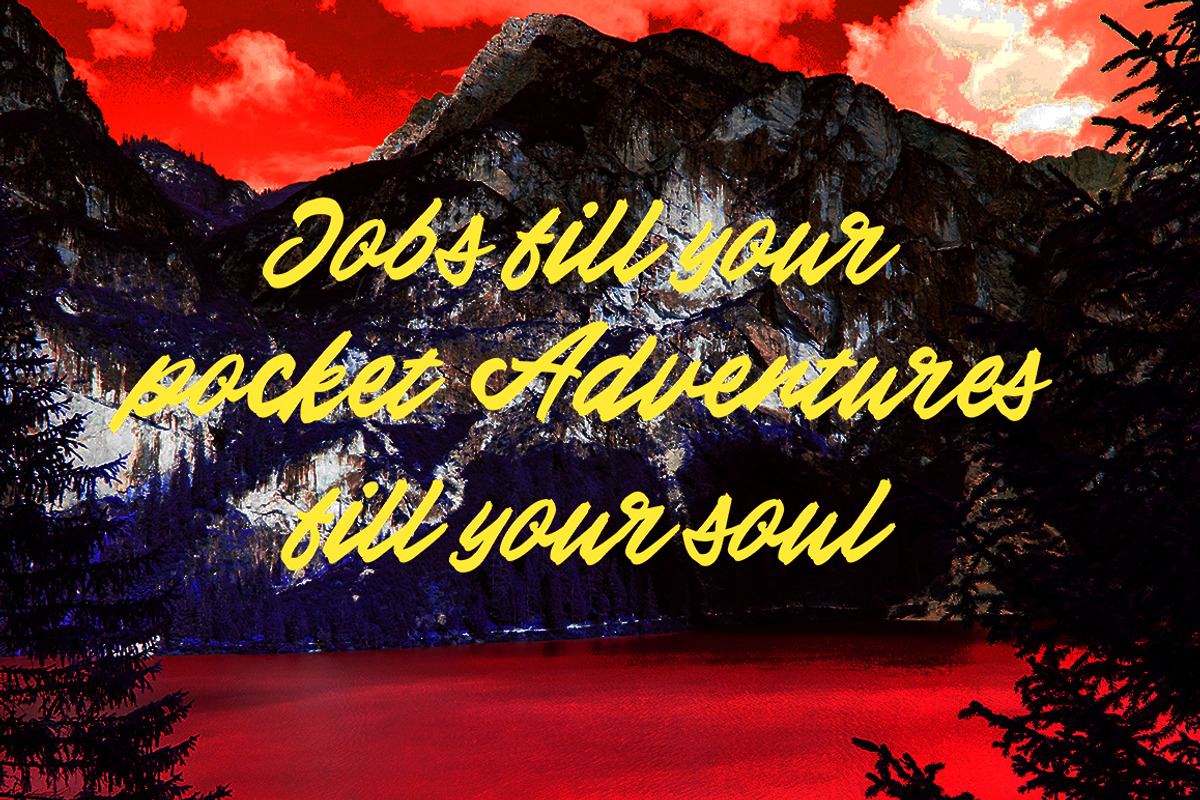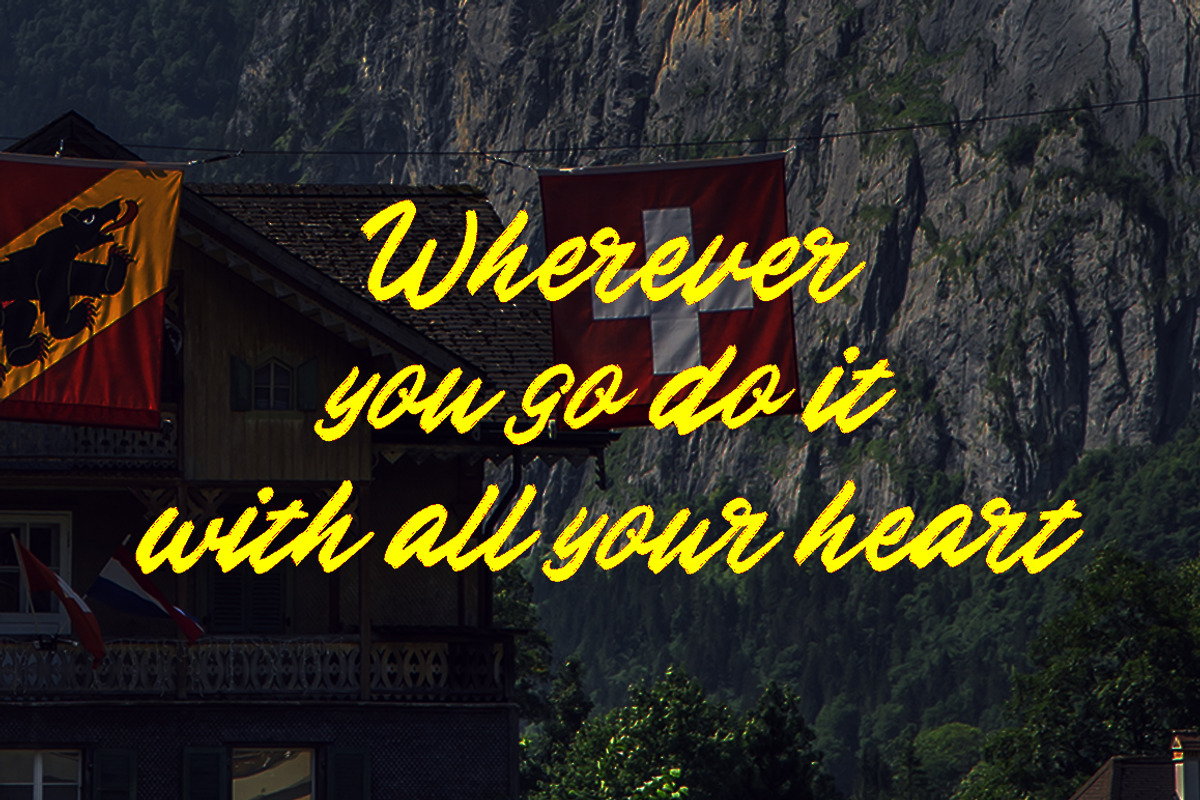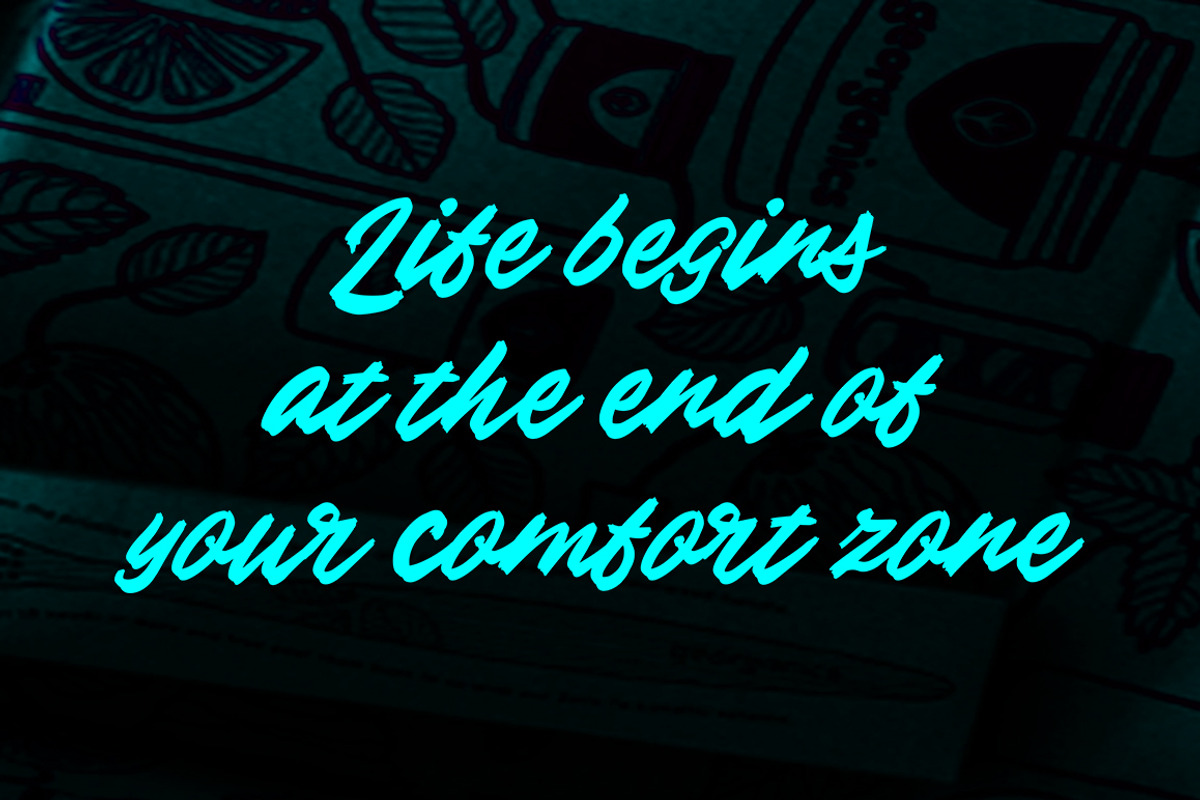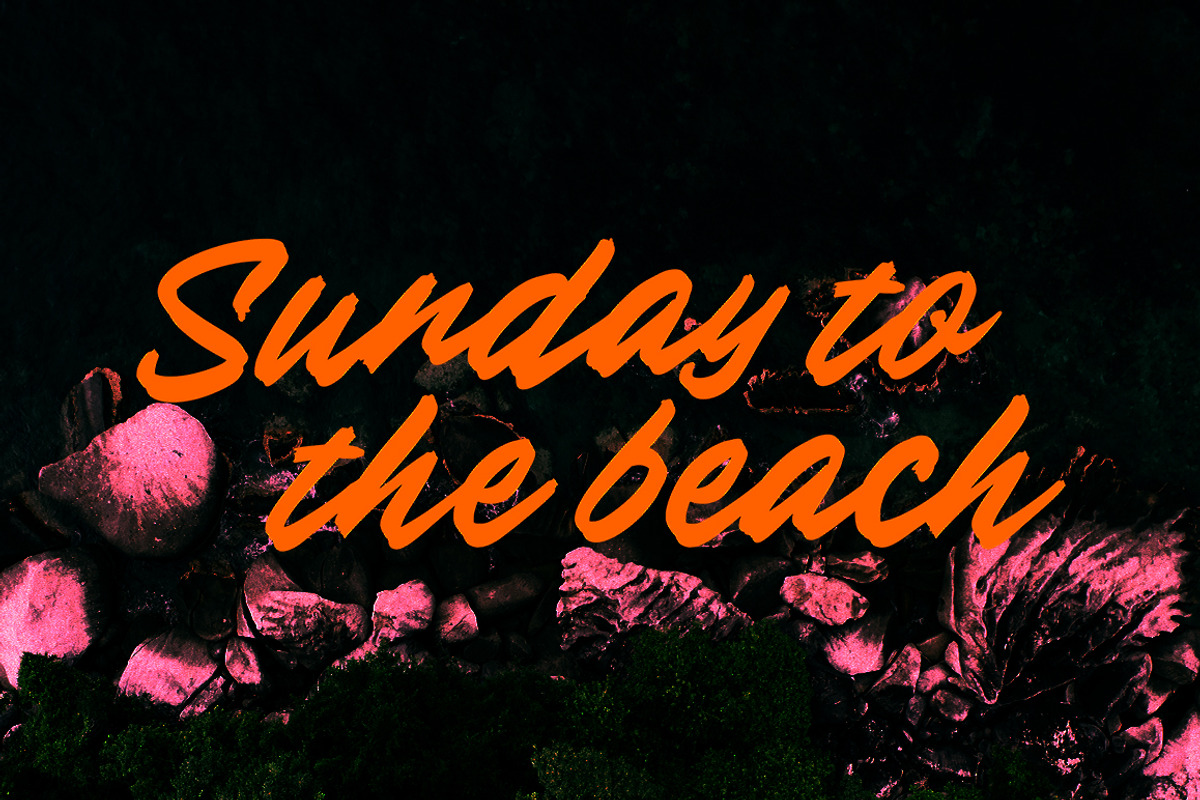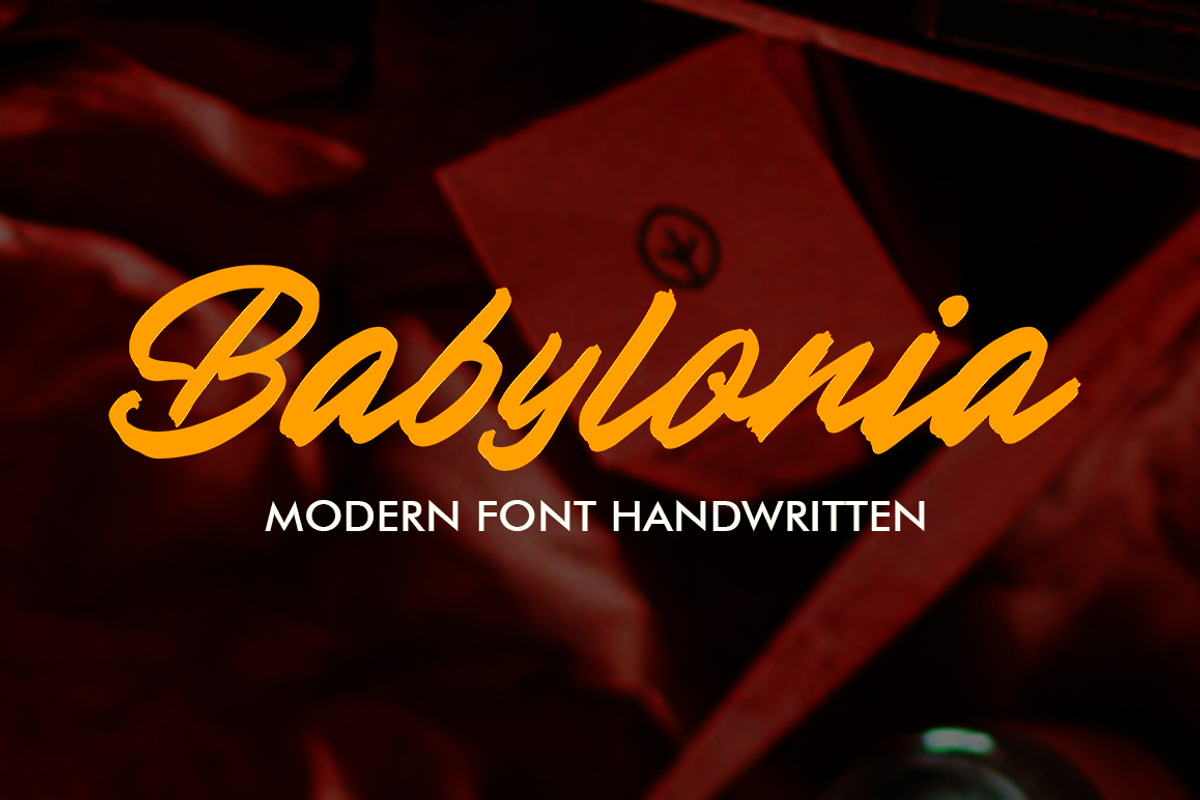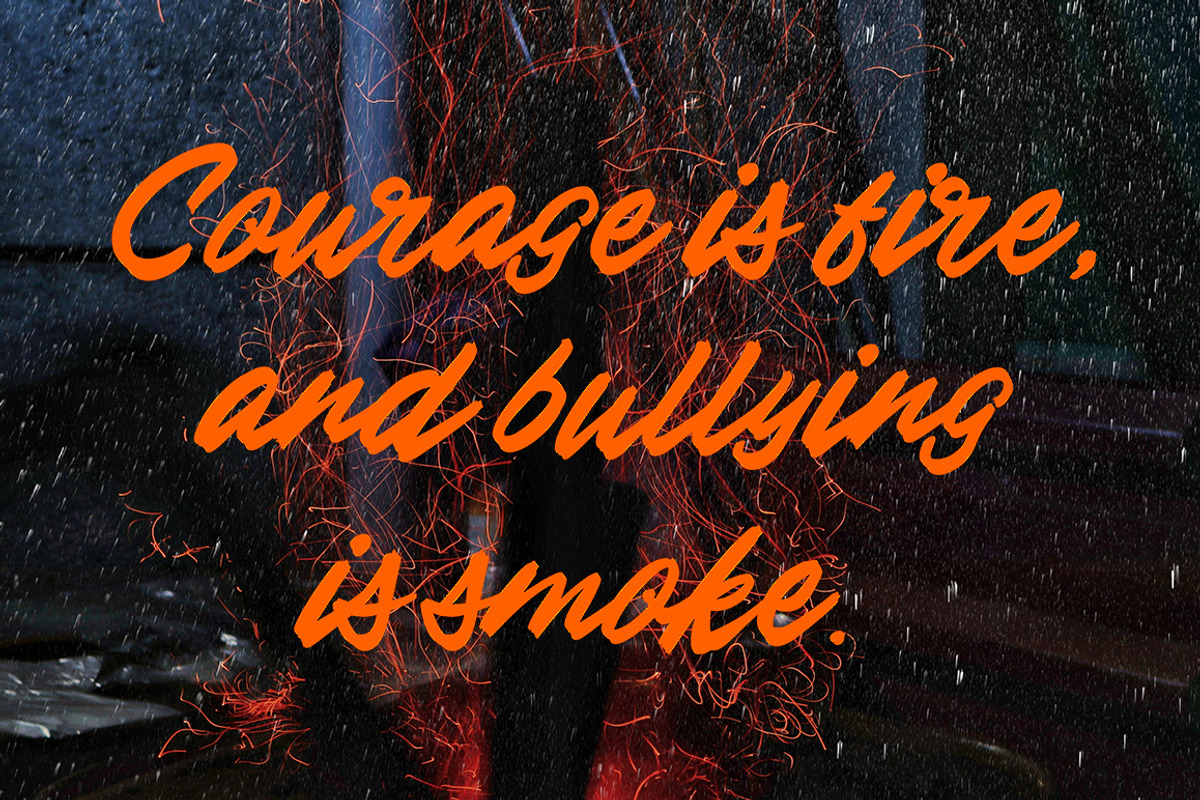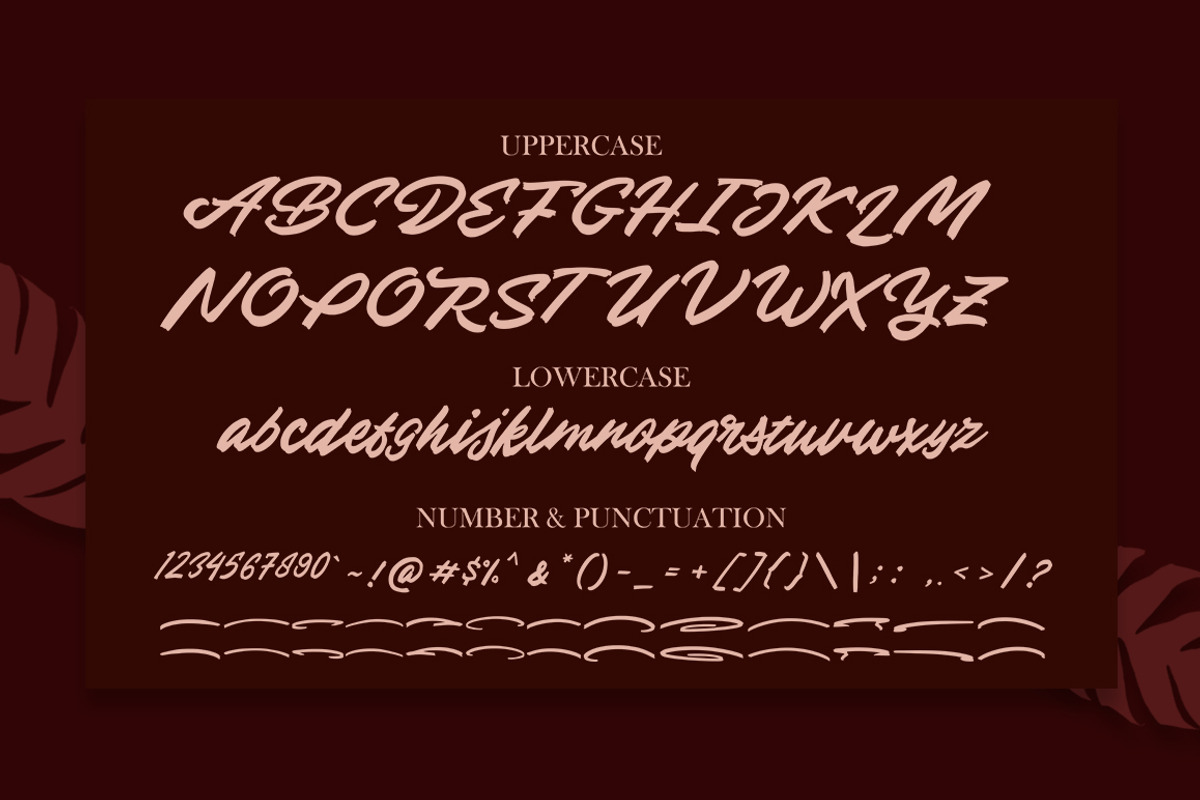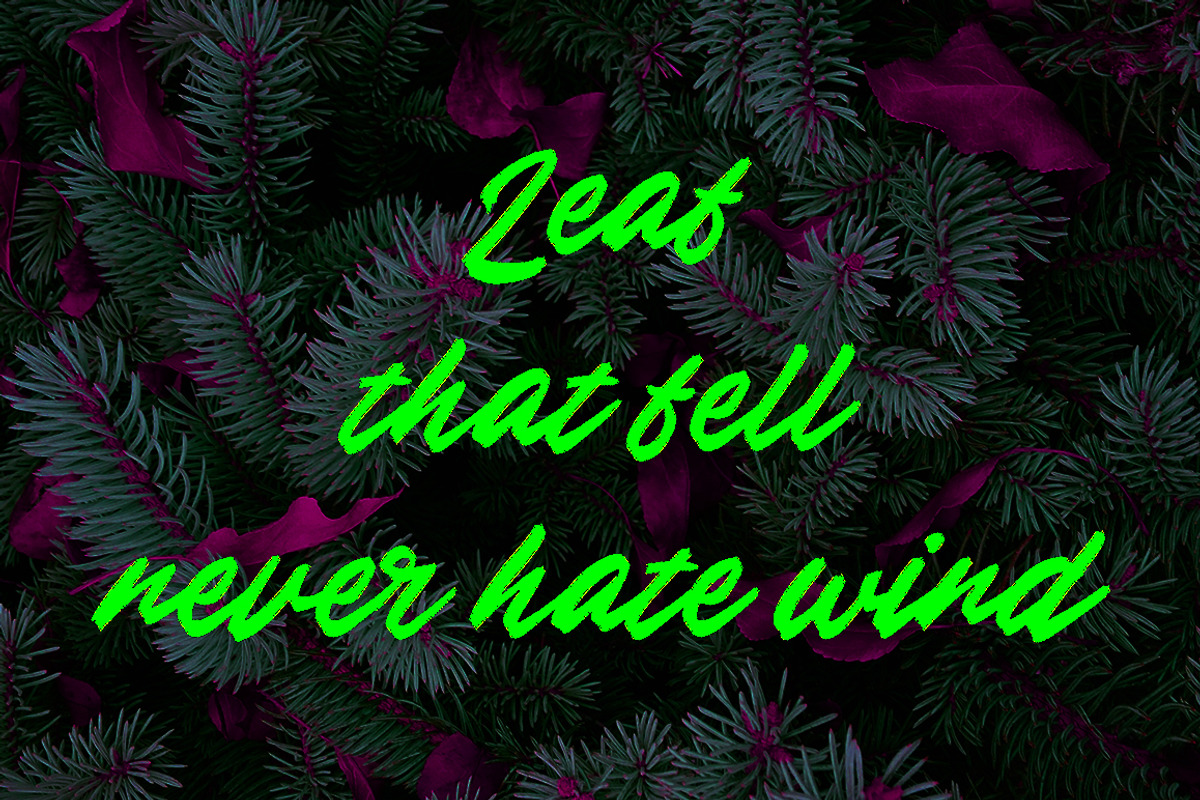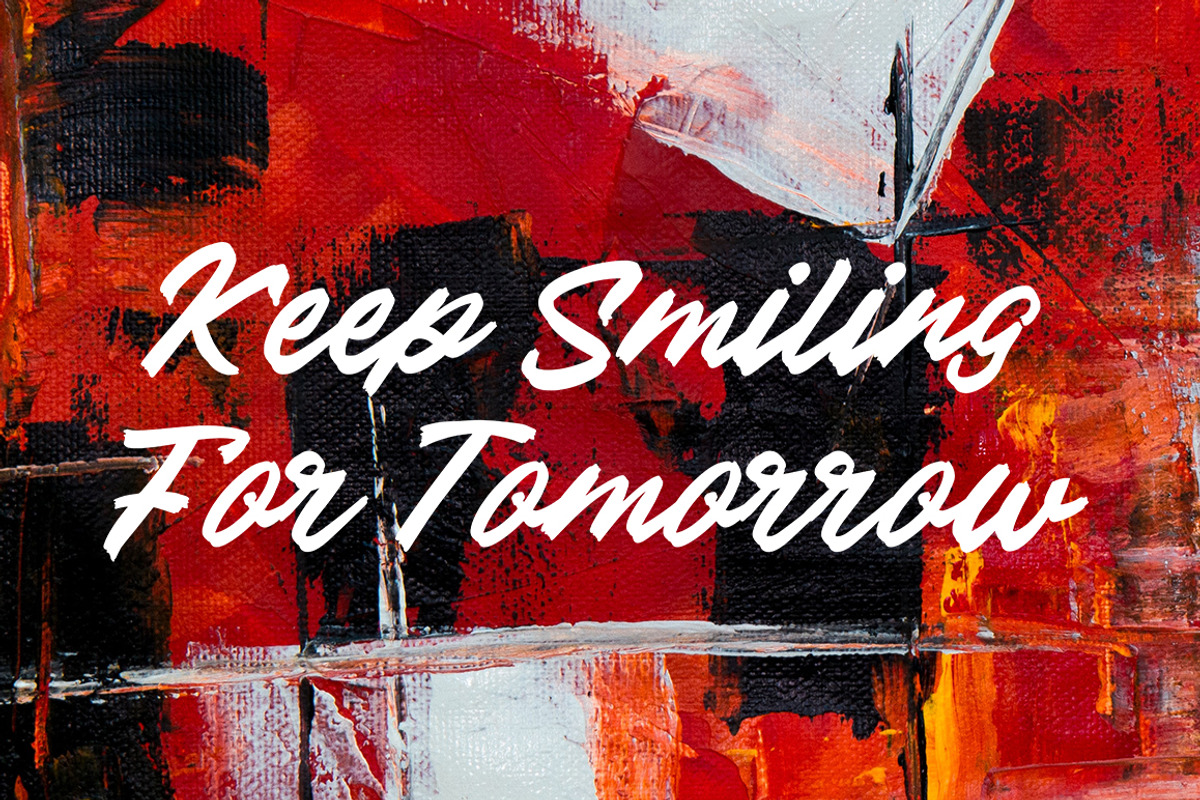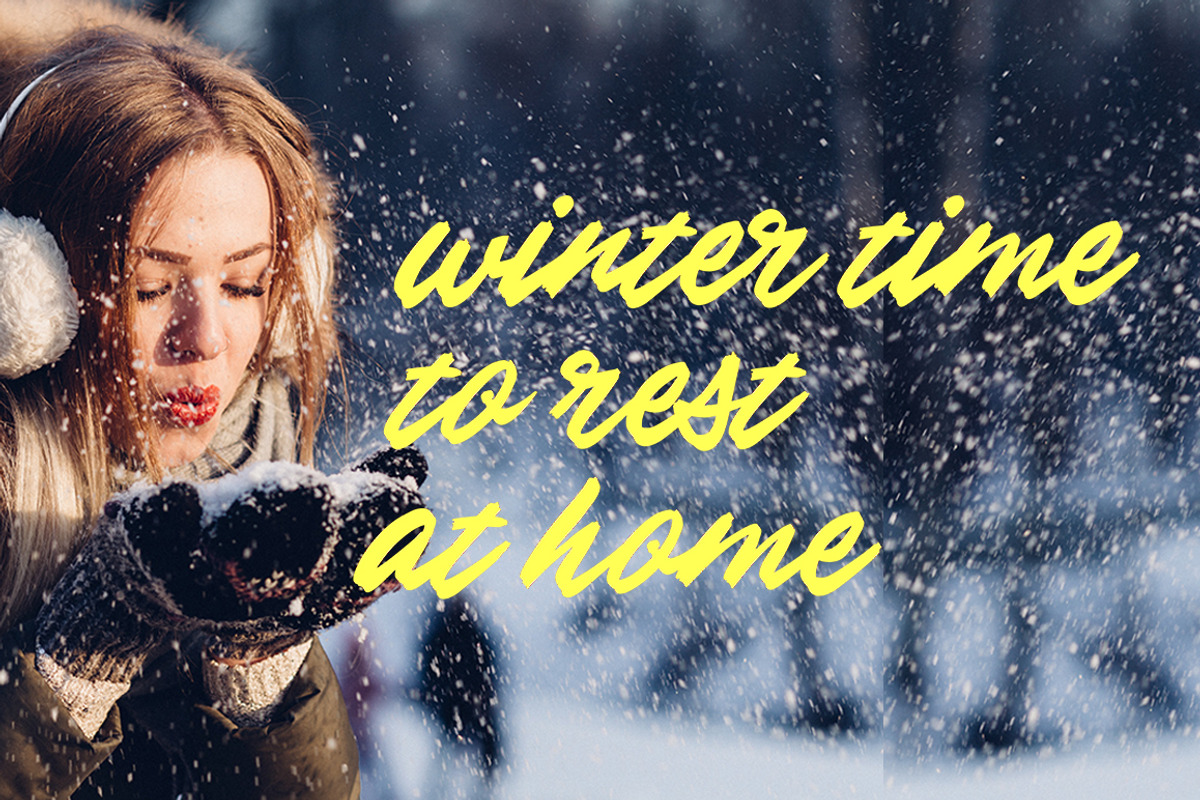
Babylonia
Babylonia is a unique textured brush font in that this brush font was created digitally. It is a contemporary made with a calm mind and is quite manly and beautiful.so it can be used in a variety of your design needs. Babylonia suitable for use in title designs such as book tittles, stationery designs, quotes, branding, logos, clothing, invitations, greeting cards, t-shirts, packaging designs, posters and more.